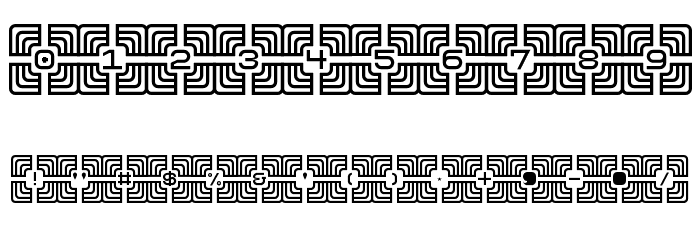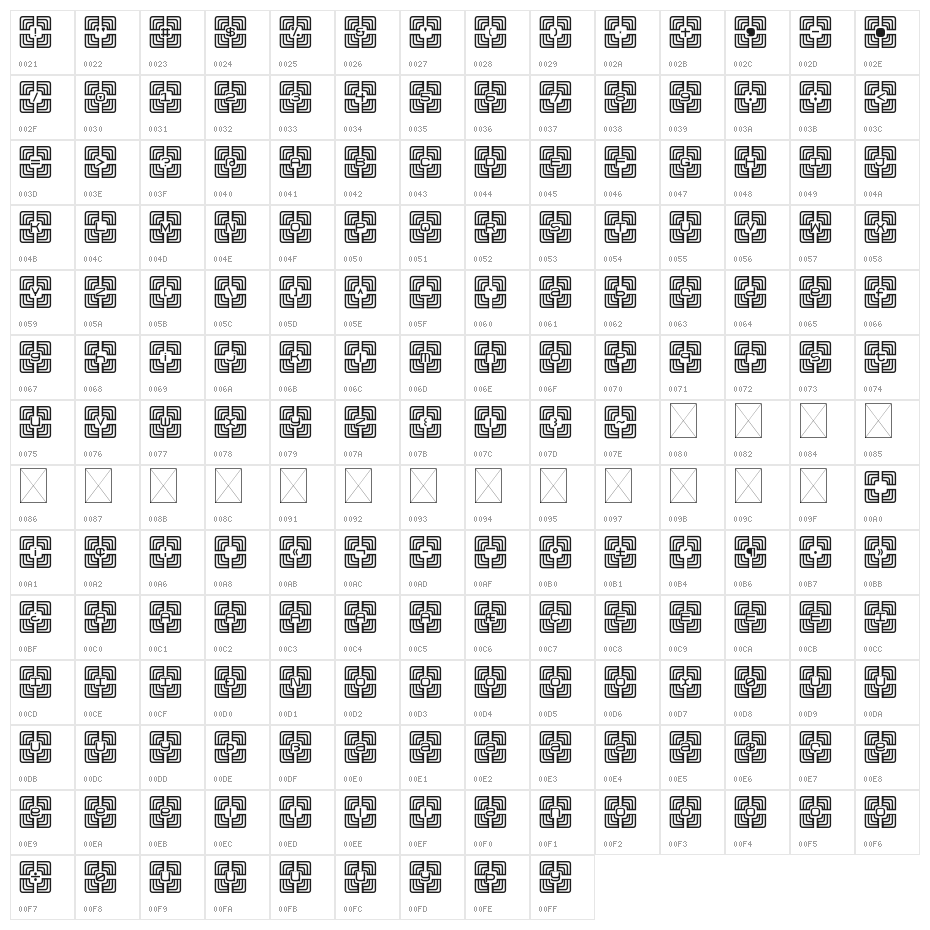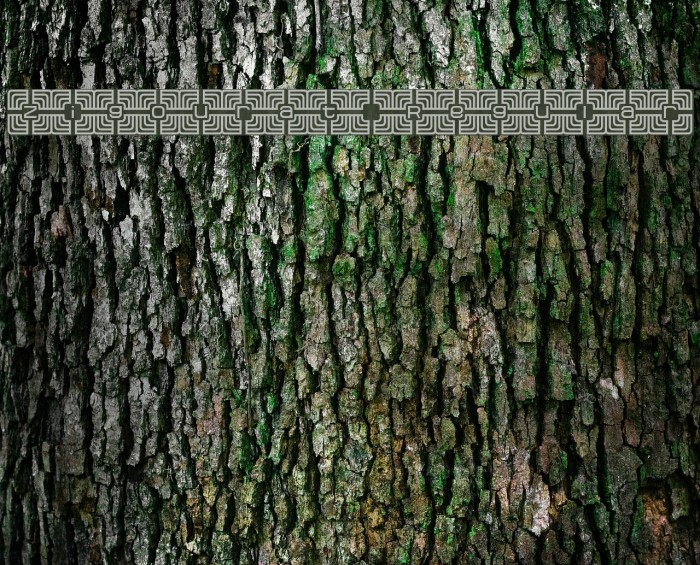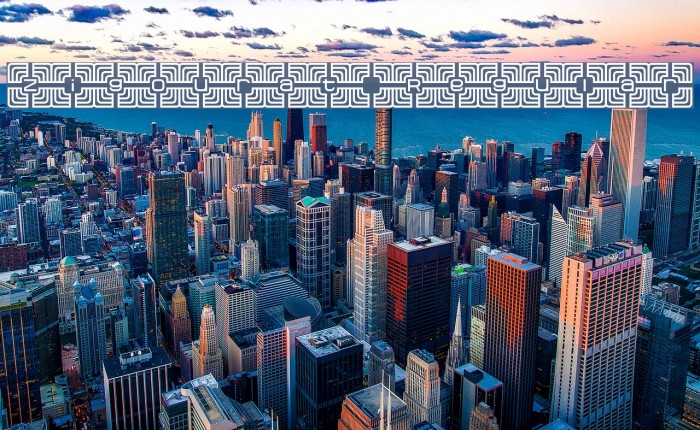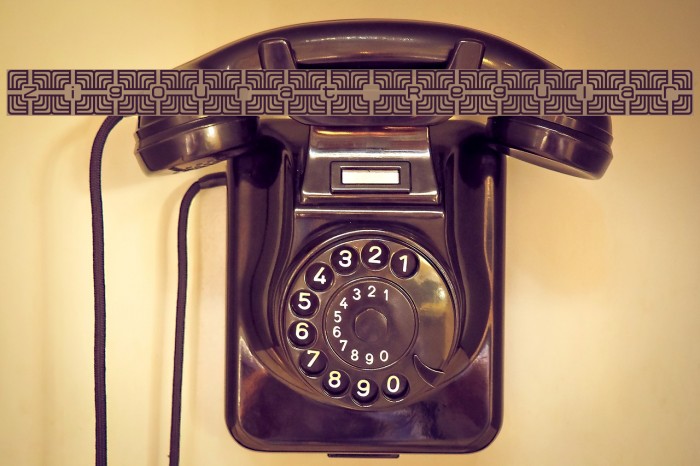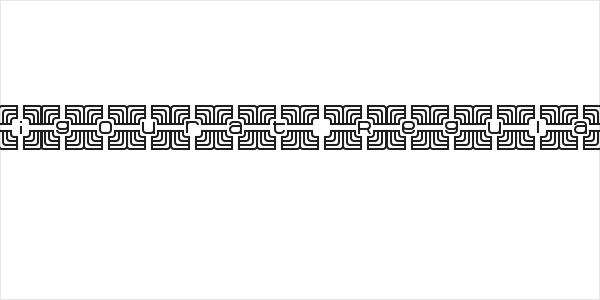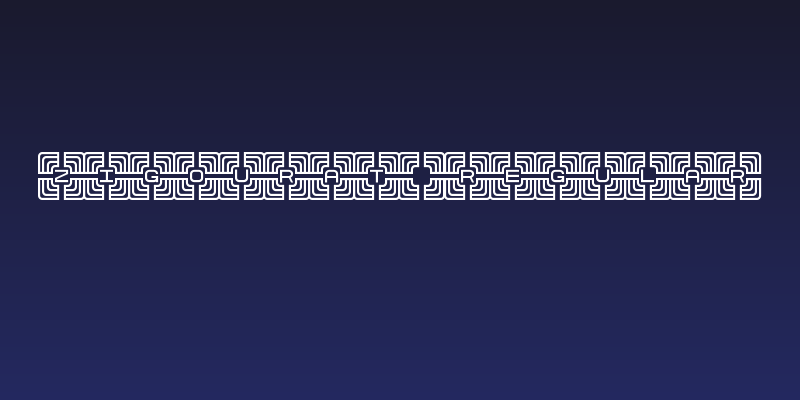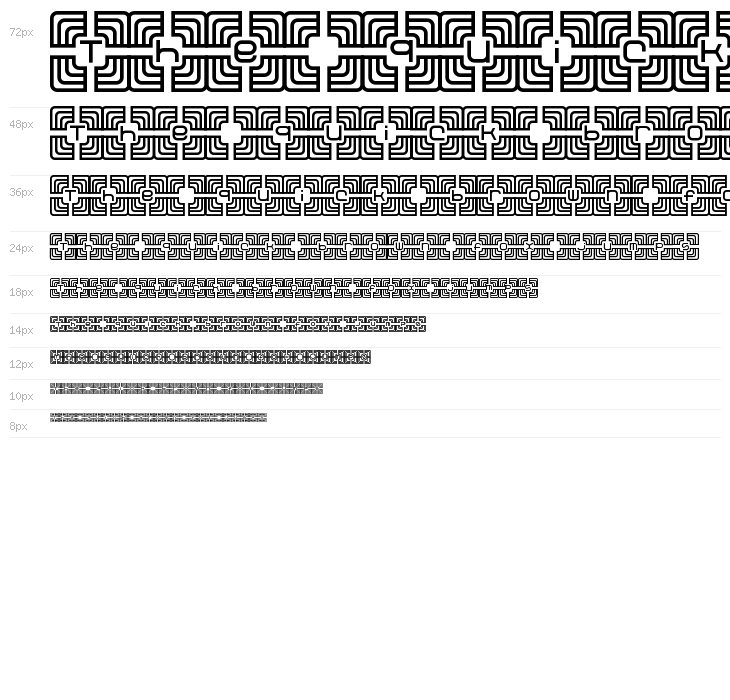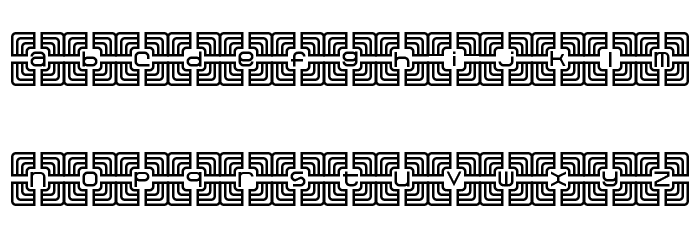
Zigourat Regular Font
Zigourat Regular Description
This design features a highly decorative and intricate pattern, characterized by interlocking geometric shapes that create a maze-like appearance. The repetitive motifs form a continuous band, ideal for ornamental purposes. The design is symmetrical and balanced, with a strong emphasis on lines and angles, giving it a structured and rhythmic feel. The pattern's complexity and boldness make it suitable for decorative borders or as a striking visual element in design projects.
| Use Case | Decorative elements, Borders |
| Proposed Projects | Ideal for decorative borders, wallpaper designs, textile patterns, or as a graphic element in branding. |